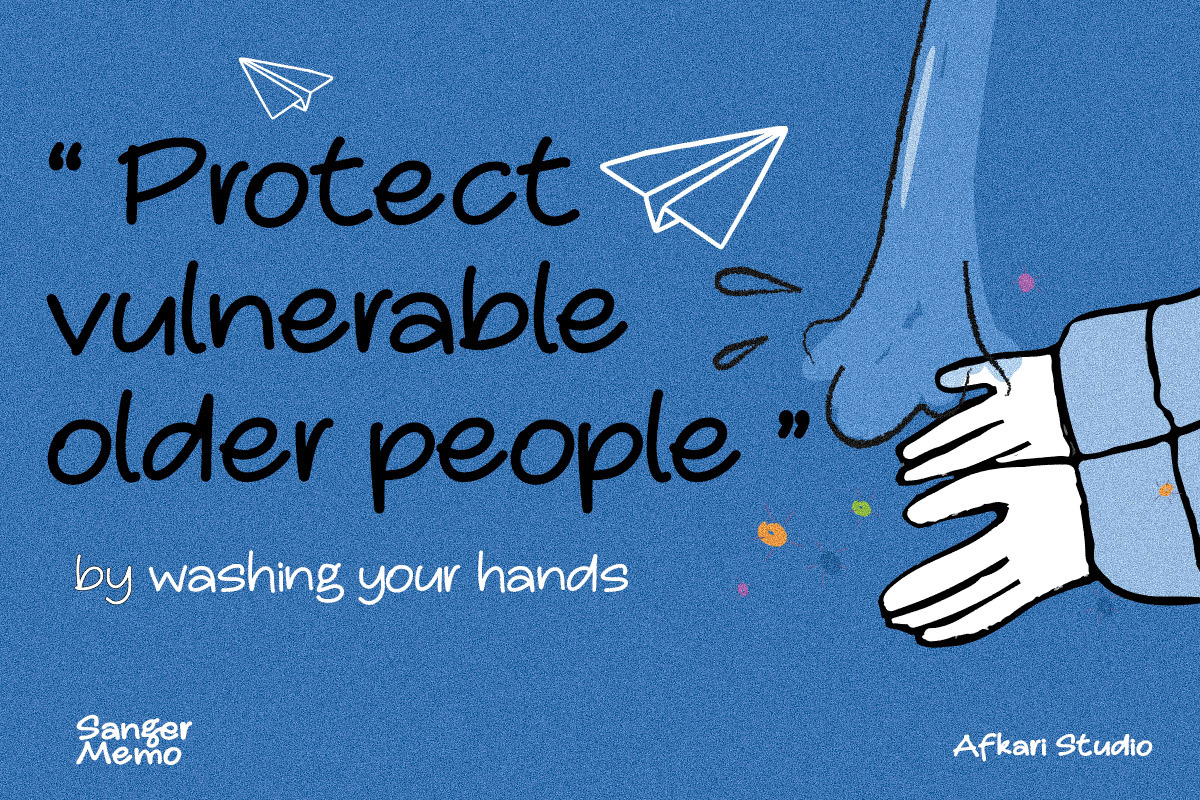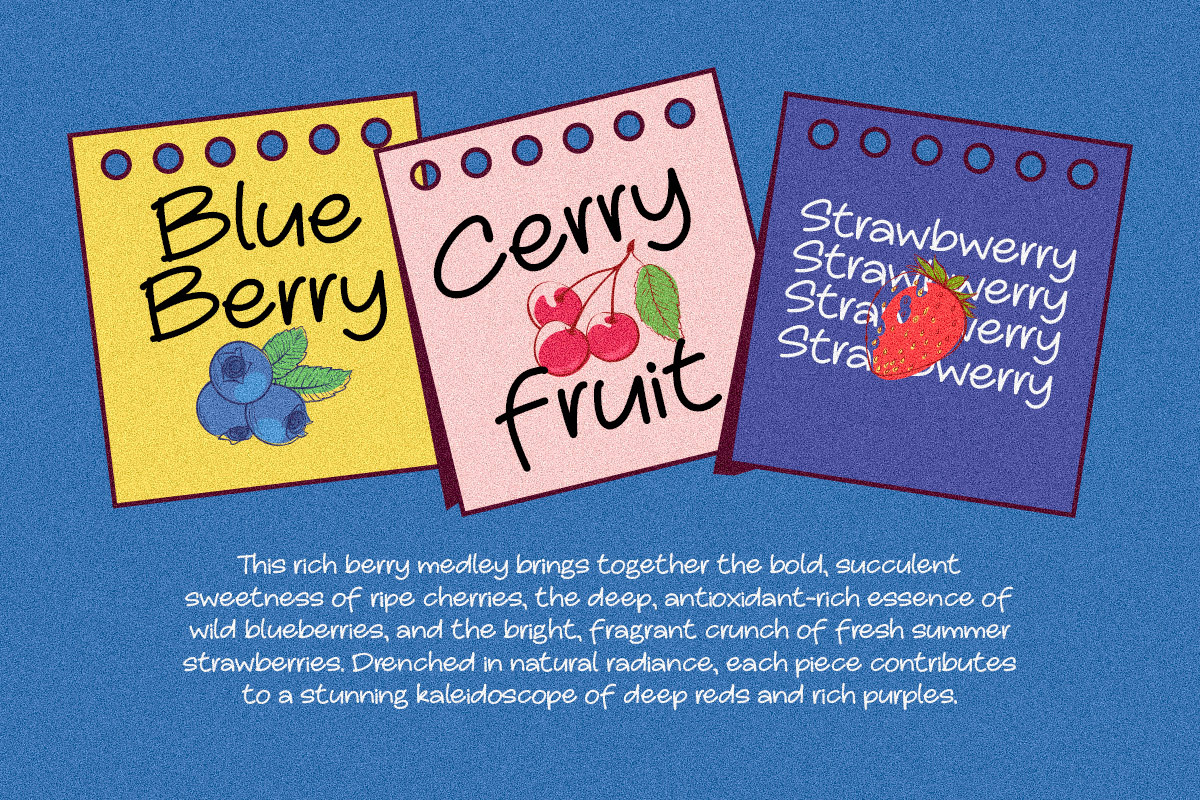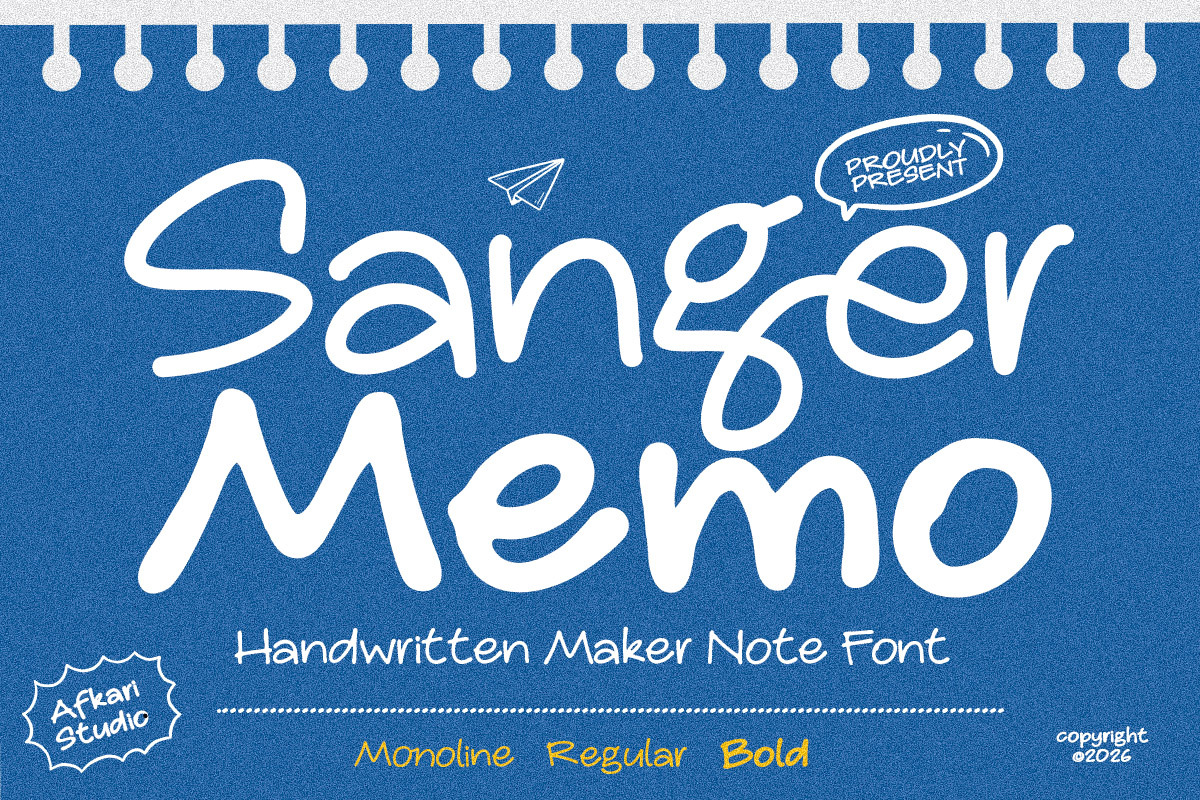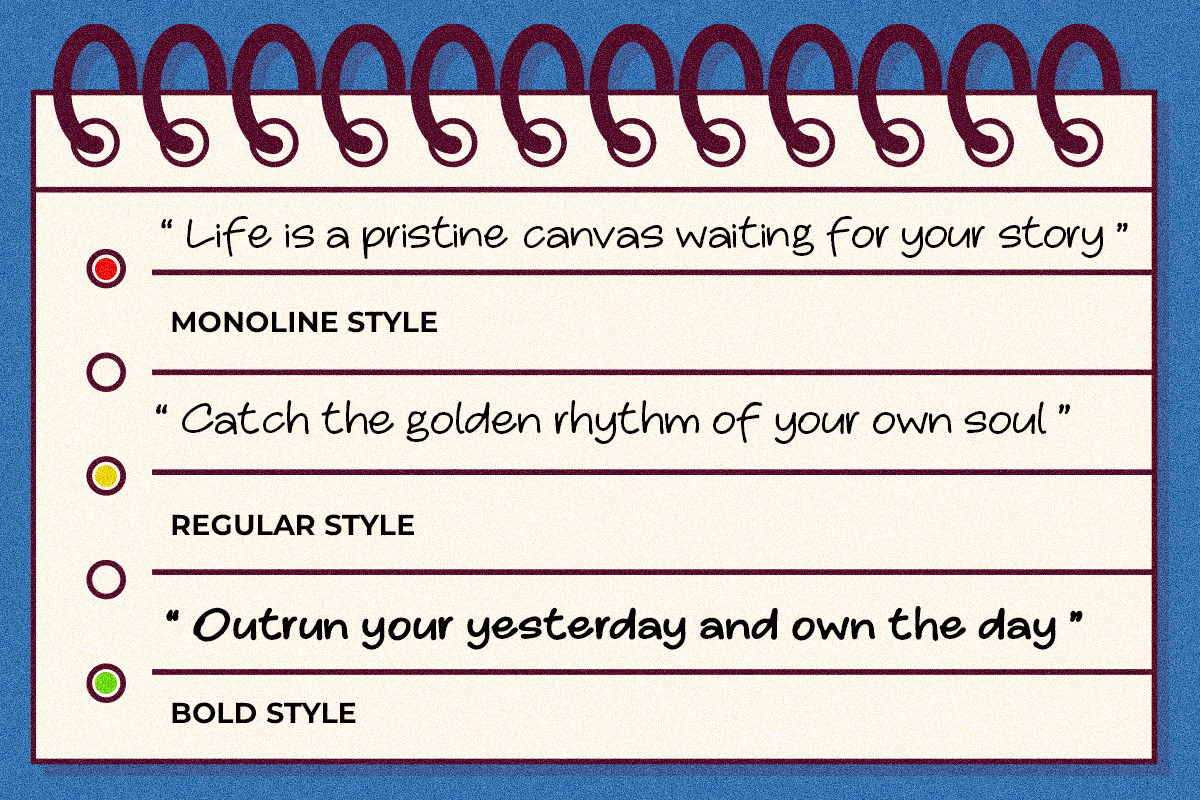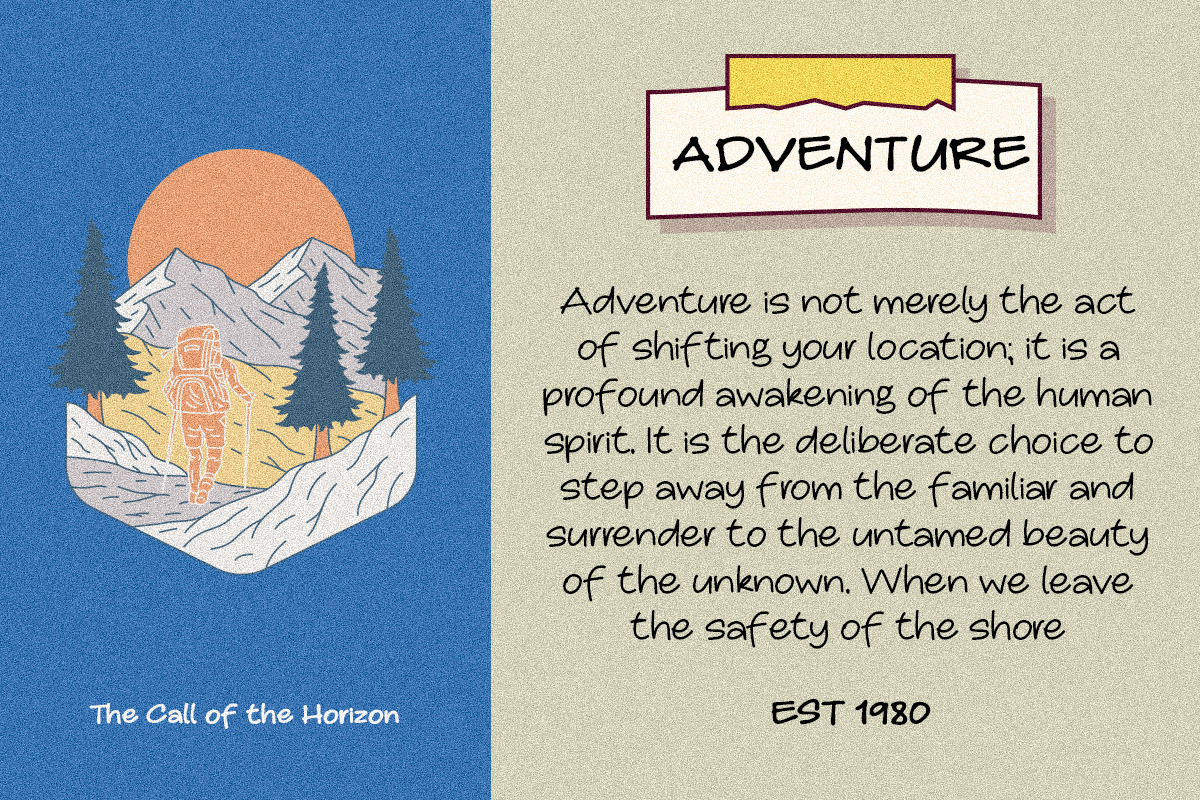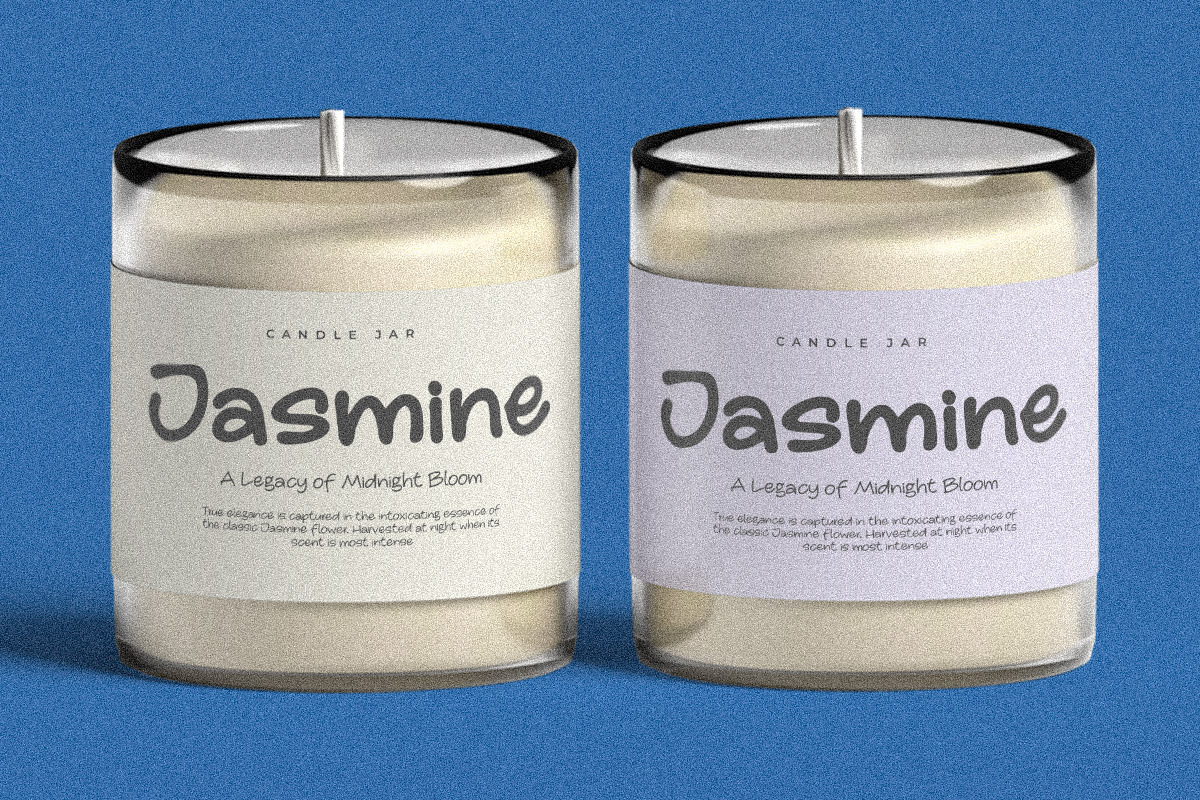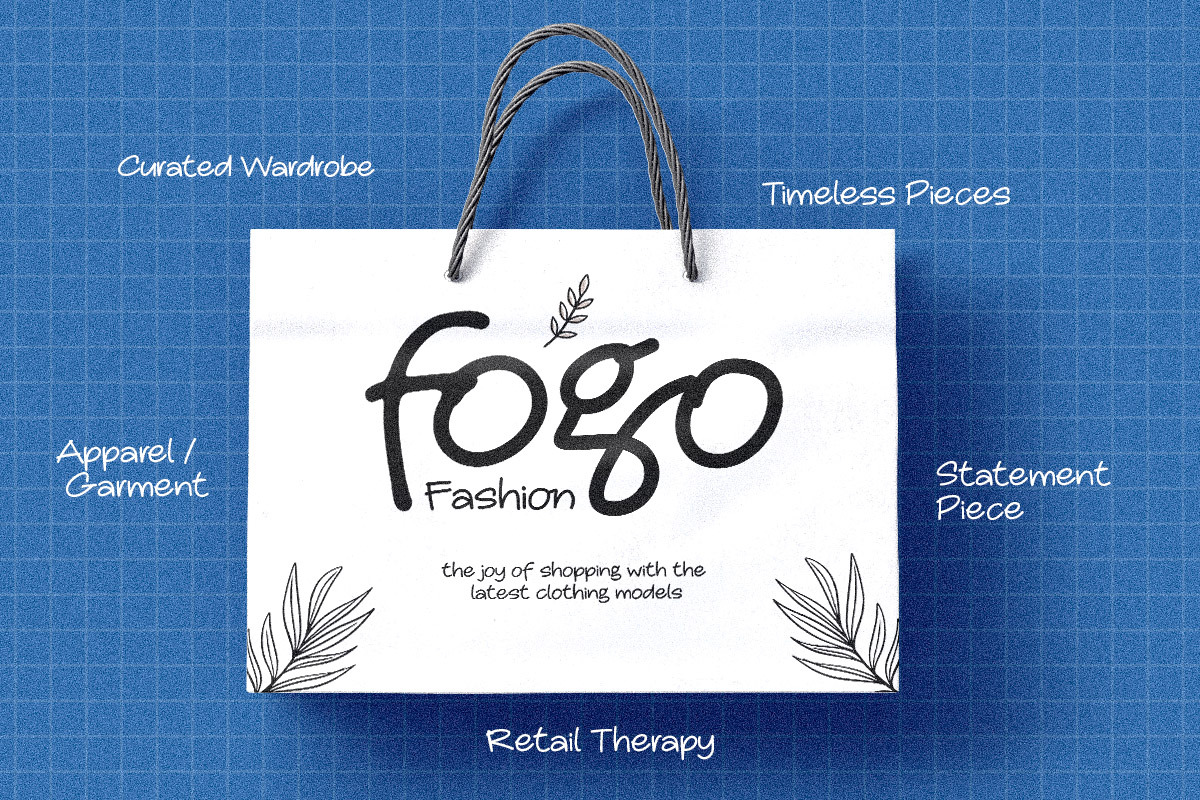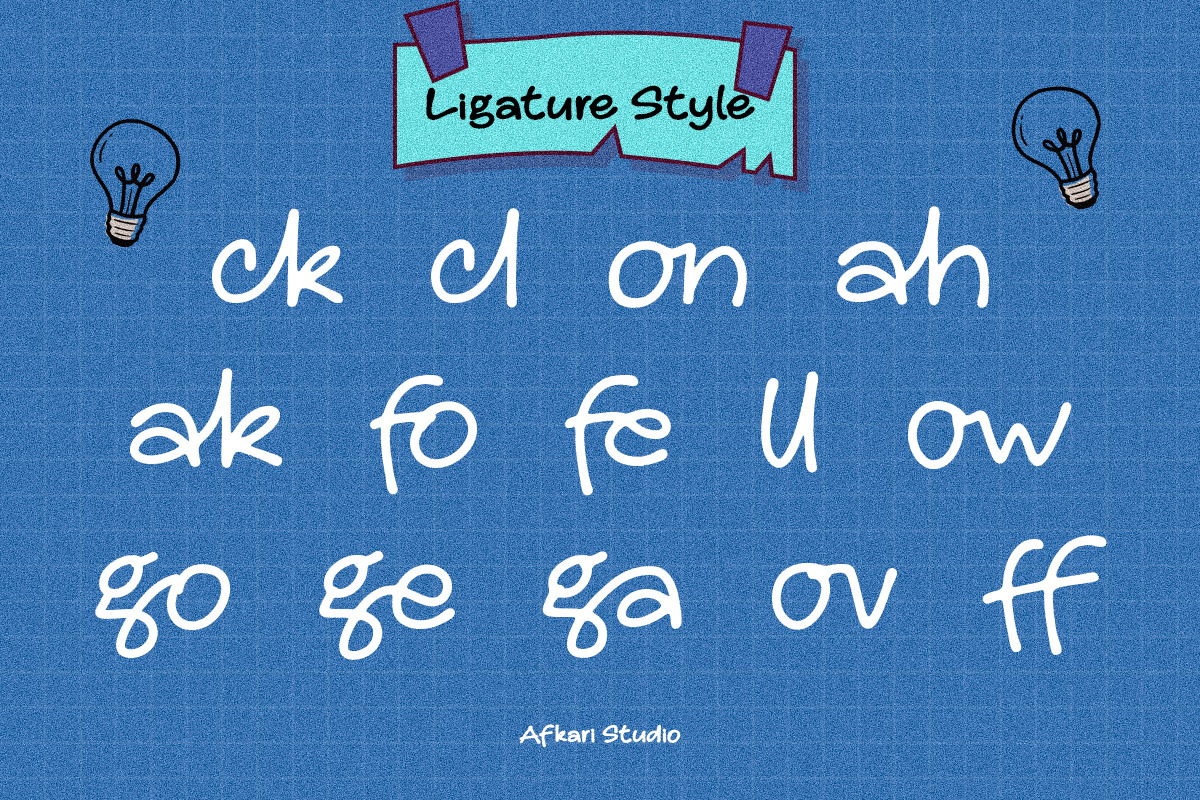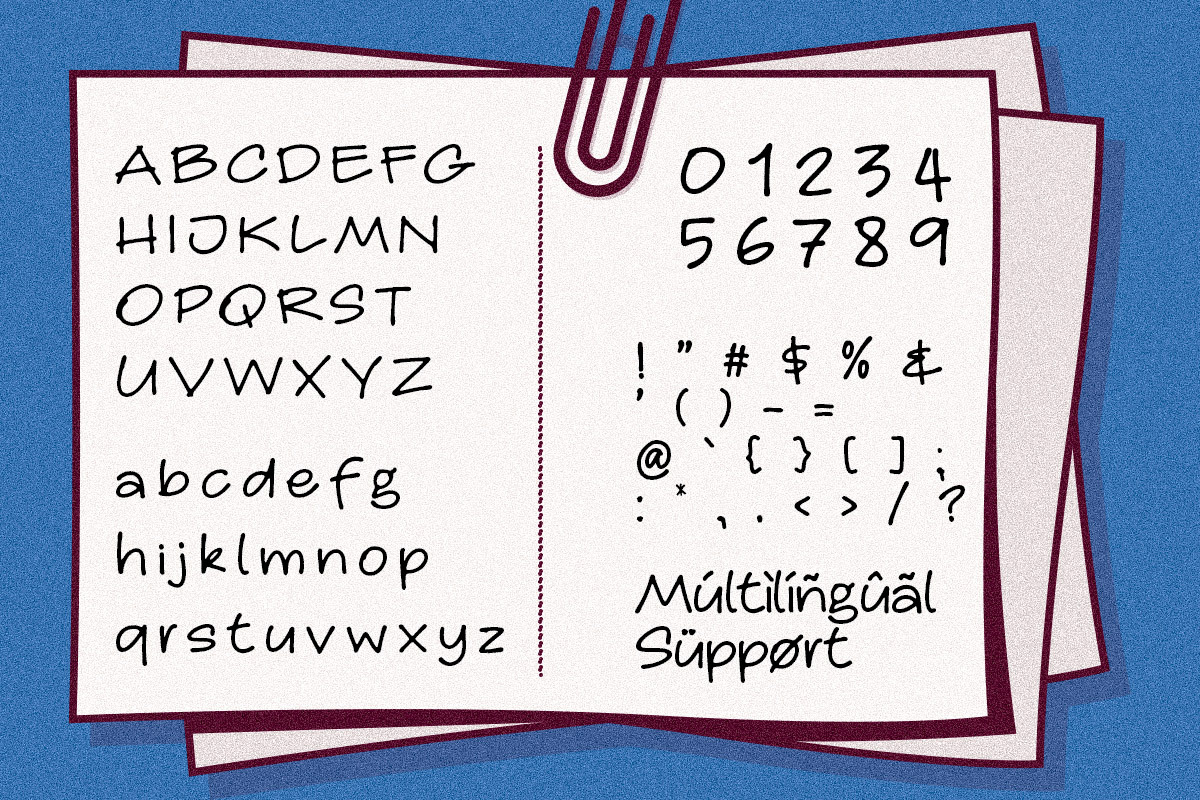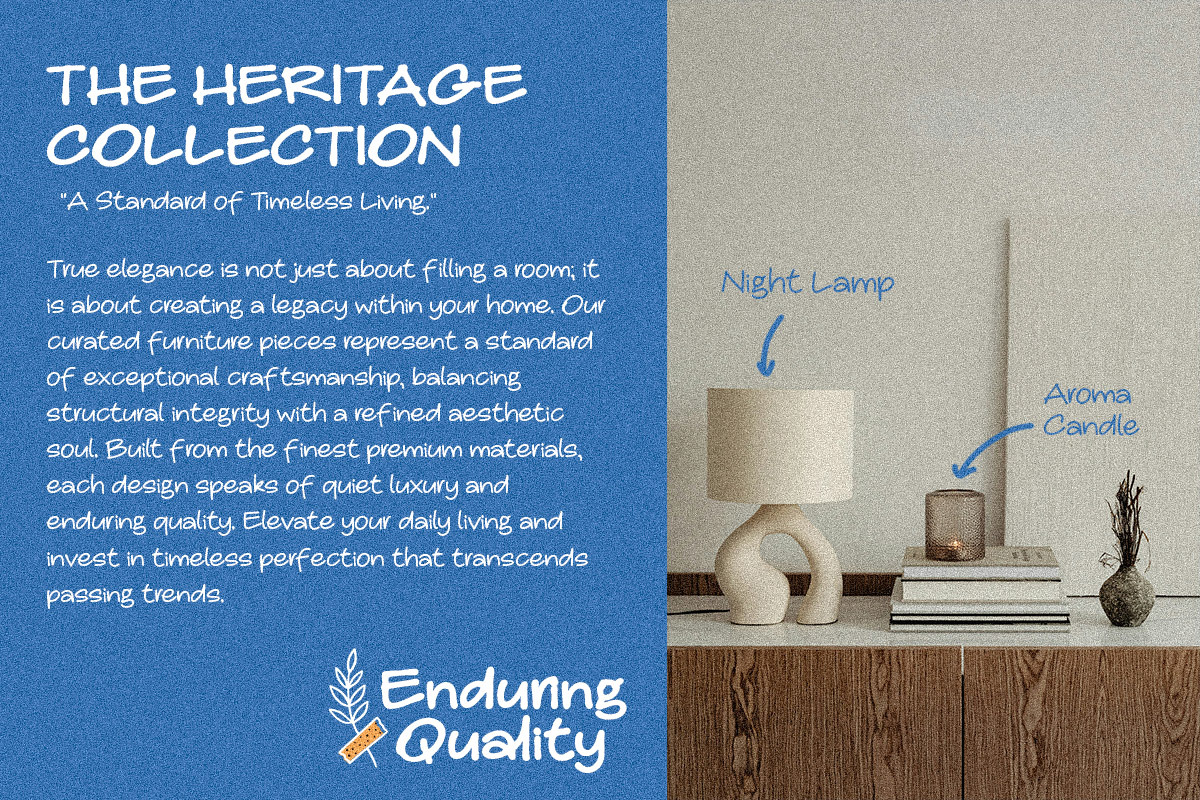
Sanger Memo - Handwritten Font
Sanger Memo is a casual handwritten marker note font designed to capture the authentic feel of spontaneous handwriting and quick creative notes. With its smooth marker strokes, organic texture, and natural flow, this font brings warmth, personality, and a handmade touch into every design.
Inspired by real handwritten memos and everyday marker writing, Sanger Memo combines relaxed charm with modern readability. Its slightly rough and expressive letterforms create a friendly and approachable appearance that feels both creative and genuine.
Available in Monoline, Regular, and Bold styles, Sanger Memo gives you the flexibility to create everything from clean minimalist layouts to bold attention-grabbing typography. Whether used individually or combined together, these styles help create dynamic and expressive visual compositions.
Perfect for designers who want to add a personal and informal vibe, Sanger Memo works beautifully across branding, social media, packaging, posters, planners, and various digital or print projects.
Highlighted Features:
- Compete set of uppercase and lowercase letters, numerals, and punctuation
- Authentic handwritten marker style with natural stroke texture
- Smooth and readable letterforms
- Multilingual support includes characters like ä, ö, ü, Ä, Ö, Ü, ß, ¿, and ¡
Create expressive and authentic typography with Sanger Memo—a handwritten marker font family featuring Monoline, Regular, and Bold styles to give your designs more flexibility, personality, and creative impact.